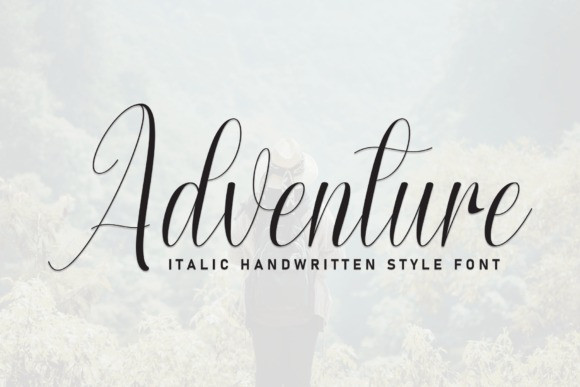
Adventure Script Type
Adventure Script Type is a sophisticated handwritten script font that exudes a sense of refined elegance and stylish flair. Its flowing curves and smooth connections evoke the graceful movement of a calligrapher’s hand. With its unique balance of decorative swashes and clear, legible letterforms, this font is perfect for branding, invitations, and any project that requires a personal touch with a hint of romantic charm. The varying thickness of its strokes adds a dynamic, artistic quality, making it both modern and timeless.